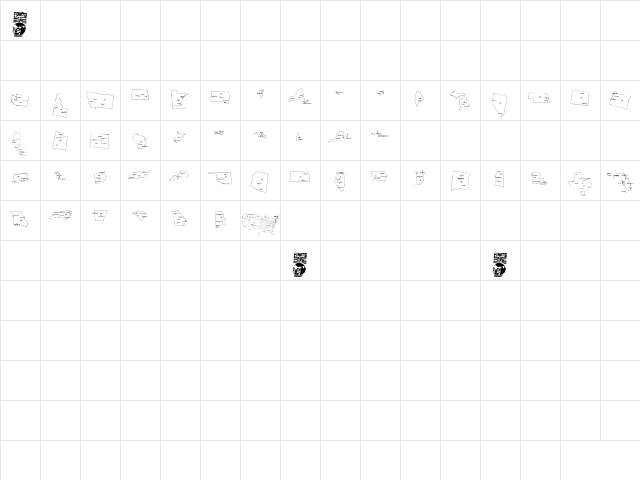
Maps of USA Regular
| Designer | Woodcutter Manero |
Design Context for Maps of USA Typeface
Maps of USA is a composed and adaptable typeface that performs quietly and consistently across a wide range of design contexts.